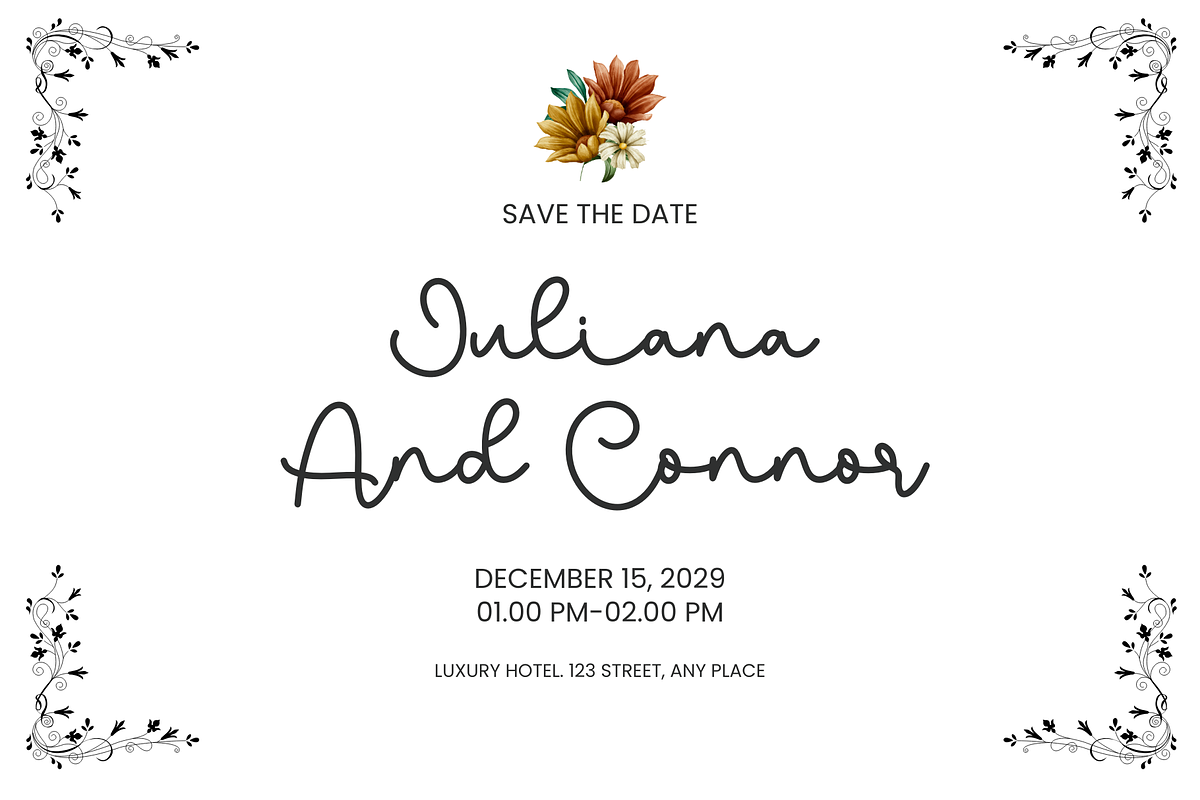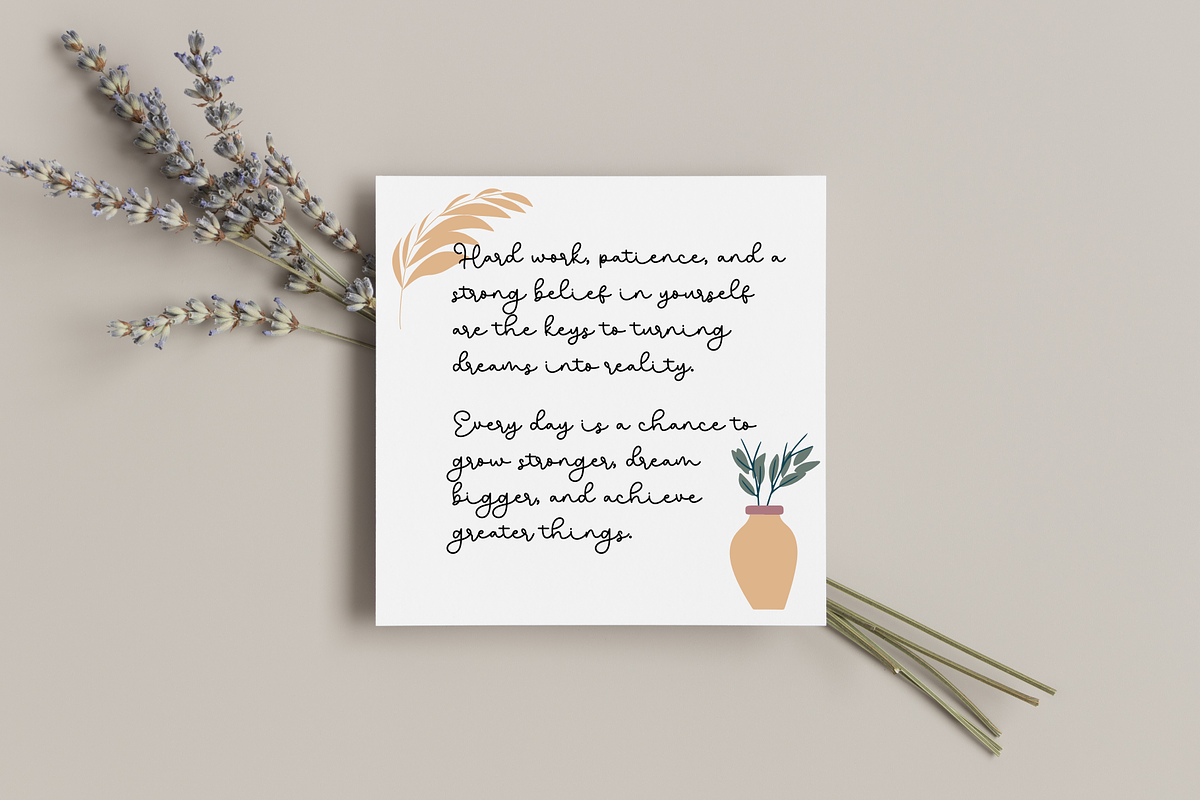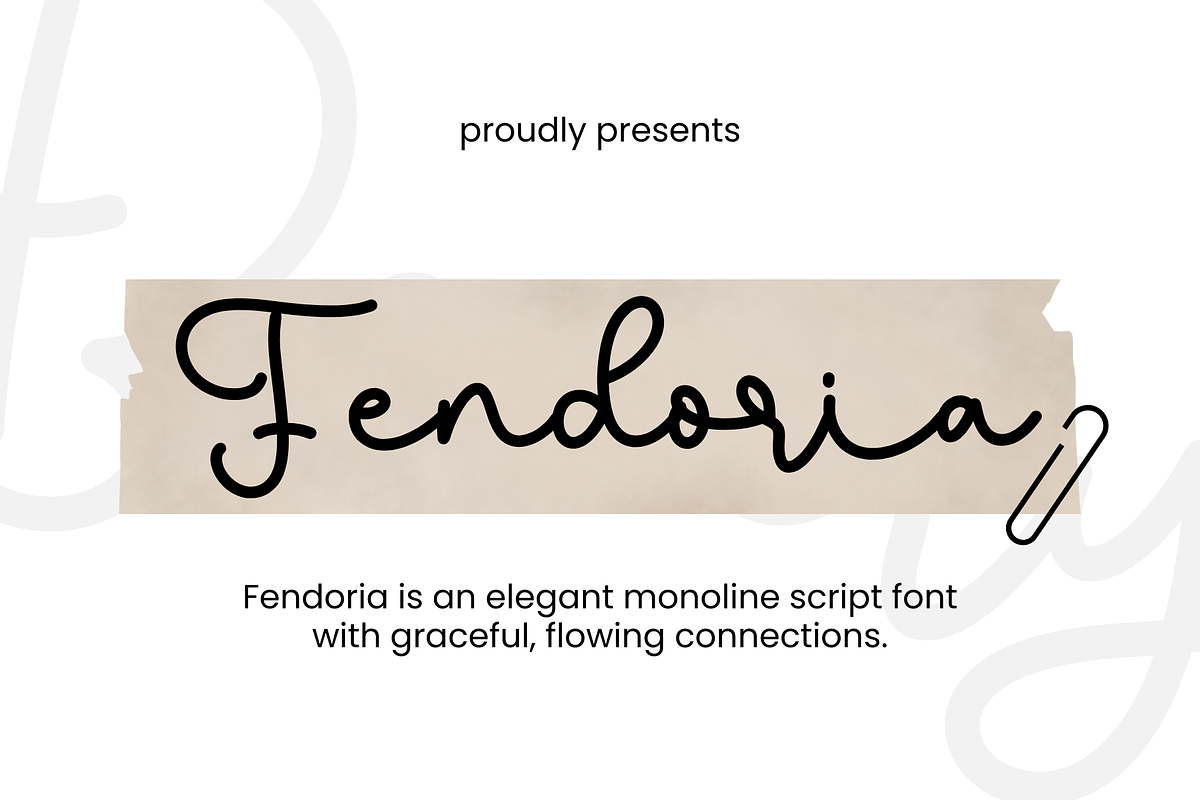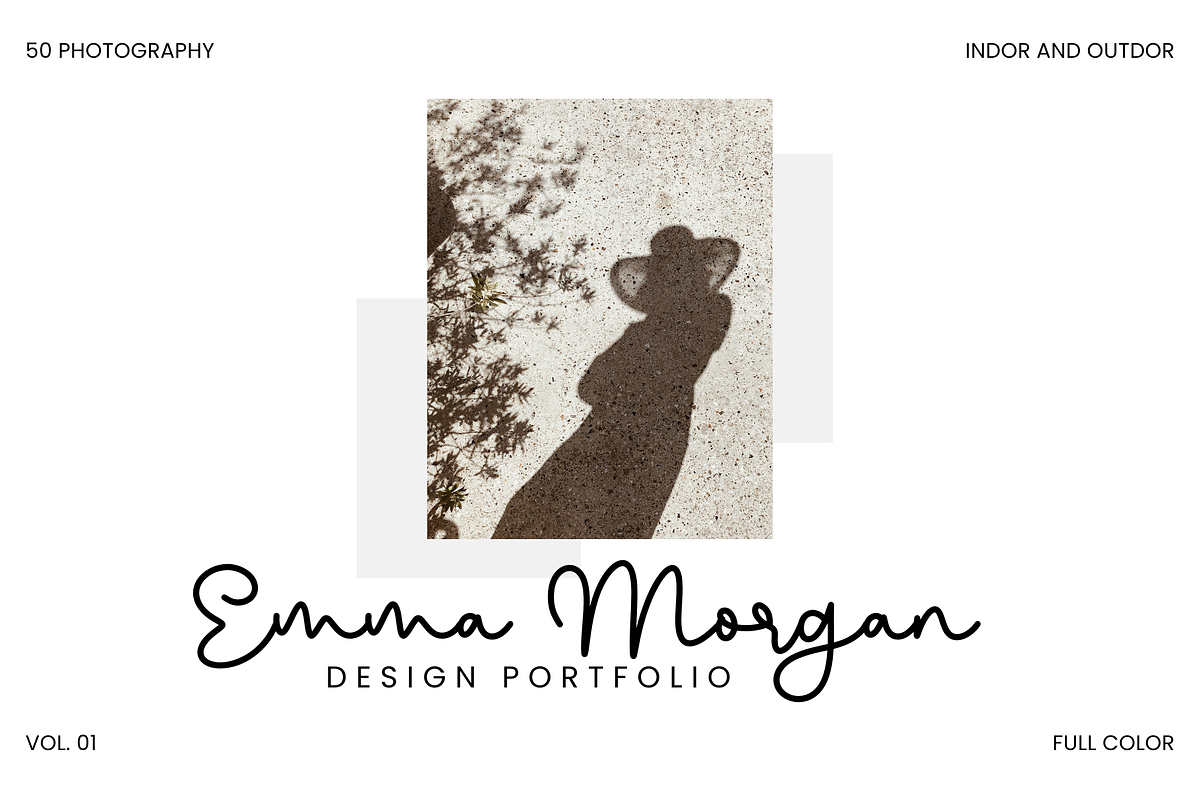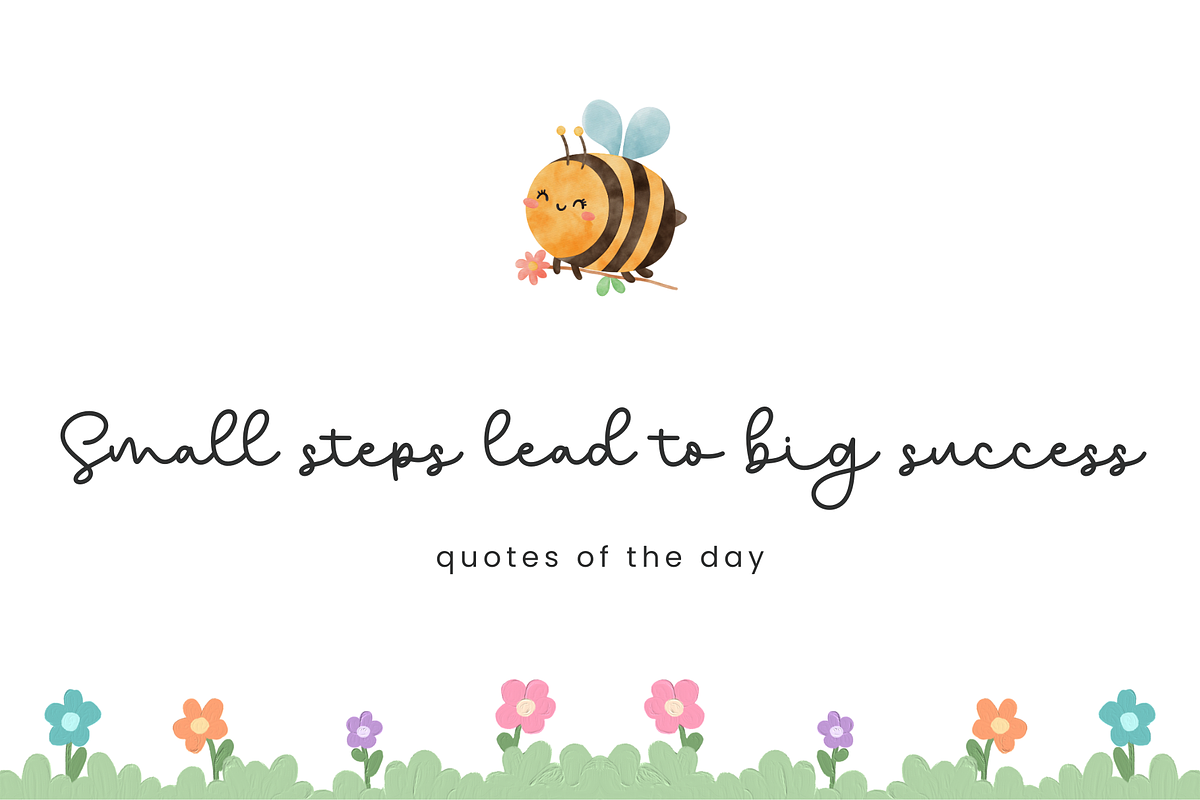
Fendoria
Fendoria is an elegant monoline handwritten script font designed to evoke a sense of sophistication and fluidity.
Its long, sweeping tails seamlessly connect the letters, creating a beautiful and cohesive flow throughout your designs.
The delicate, yet bold strokes make Fendoria perfect for projects that require a balance of artistry and readability.
Whether used for branding, invitations, or logos, this font brings a touch of grace and uniqueness to any creative work.
Ideal for both formal and creative applications, Fendoria offers an effortlessly stylish touch to your typography.